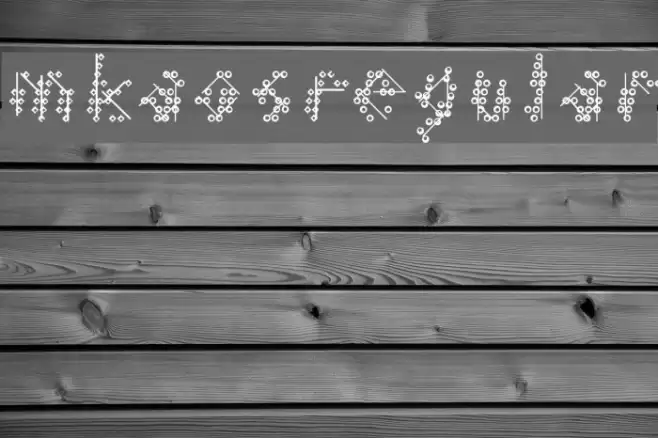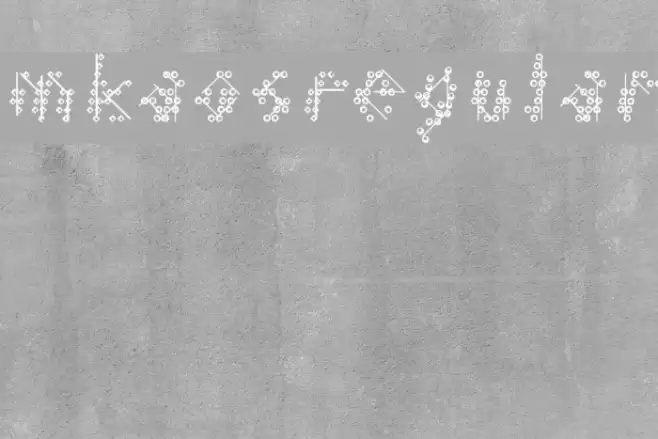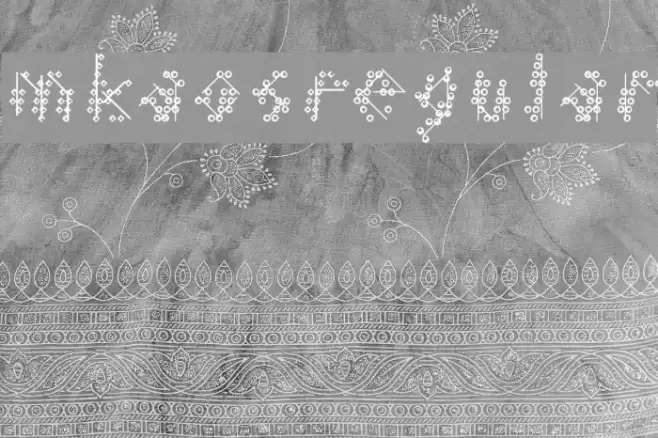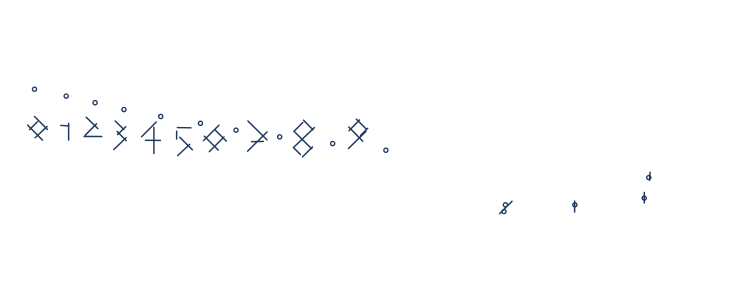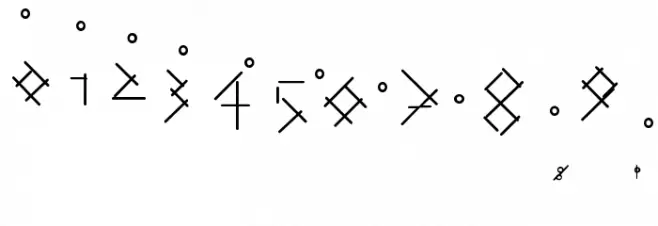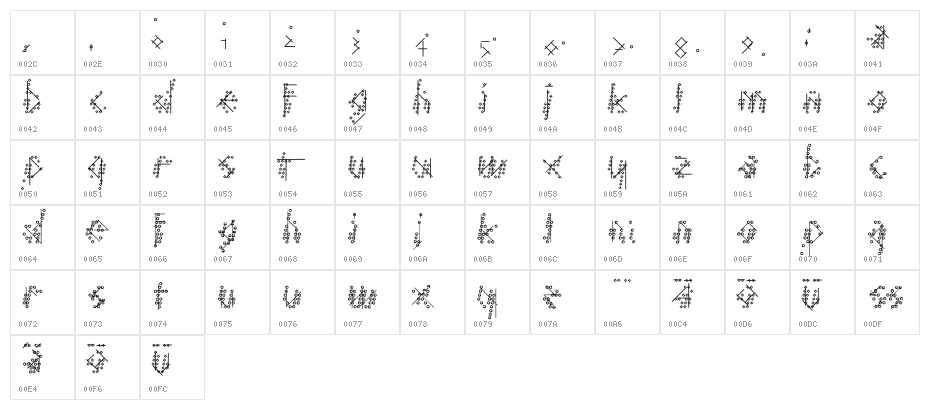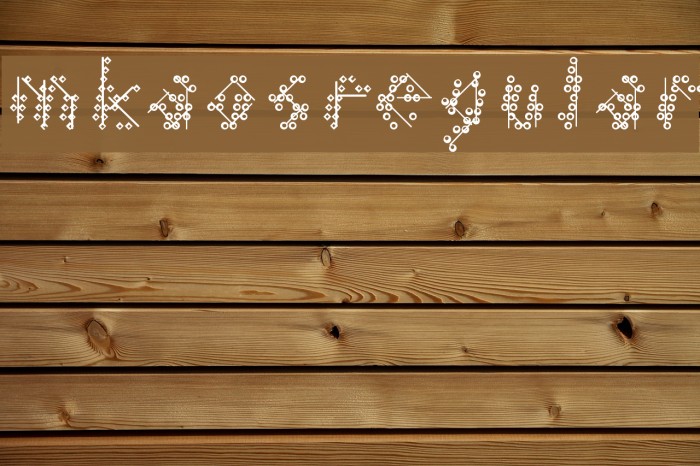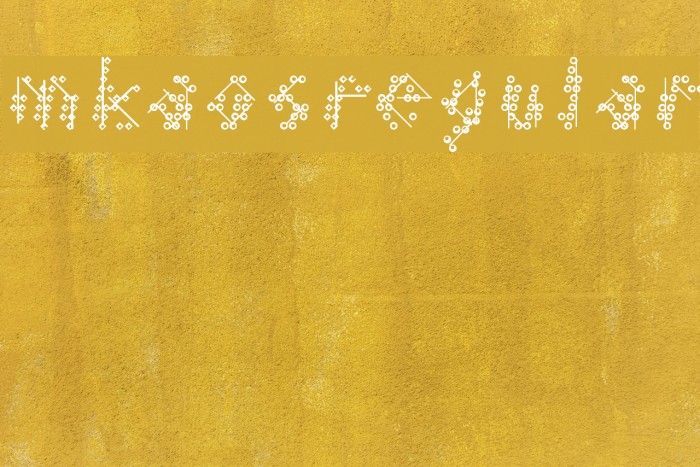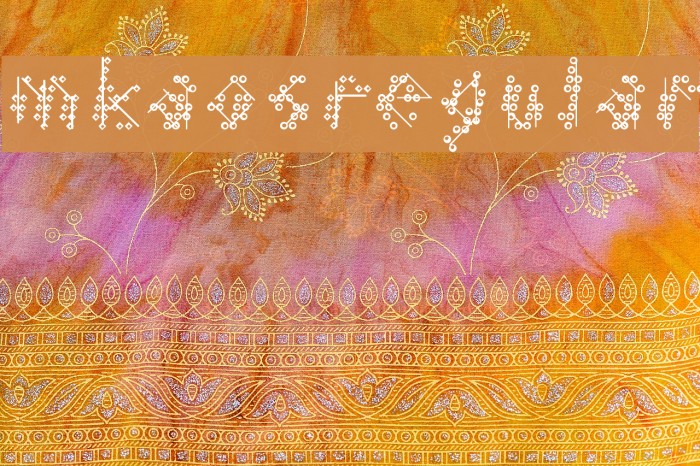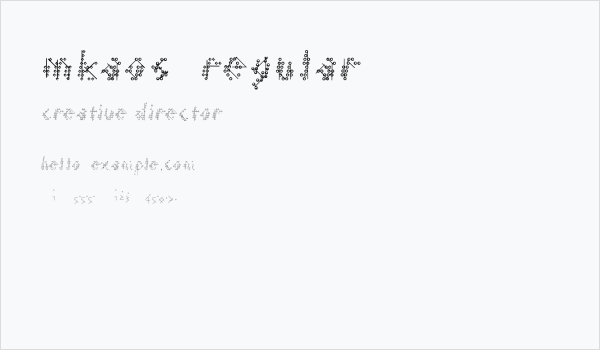
MKaos-Regular Font
MKaos-Regular Description
This font features a highly decorative and intricate design, characterized by a series of interconnected circles and lines forming each letter and number. The style is reminiscent of a digital or technological aesthetic, with a complex structure that gives it a unique and eye-catching appearance. Each character is composed of multiple small circles connected by thin lines, creating a pattern that is both geometric and abstract. The font's distinctiveness makes it suitable for creative and unconventional design projects, where a bold and artistic statement is desired.
A decorative font with interconnected circles and lines, offering a digital and abstract aesthetic from Uncategorized fonts.
- Proposed Projects: Ideal for digital art, futuristic designs, technology-themed projects, and creative branding.
- Use Case: Logos, Posters, Album covers